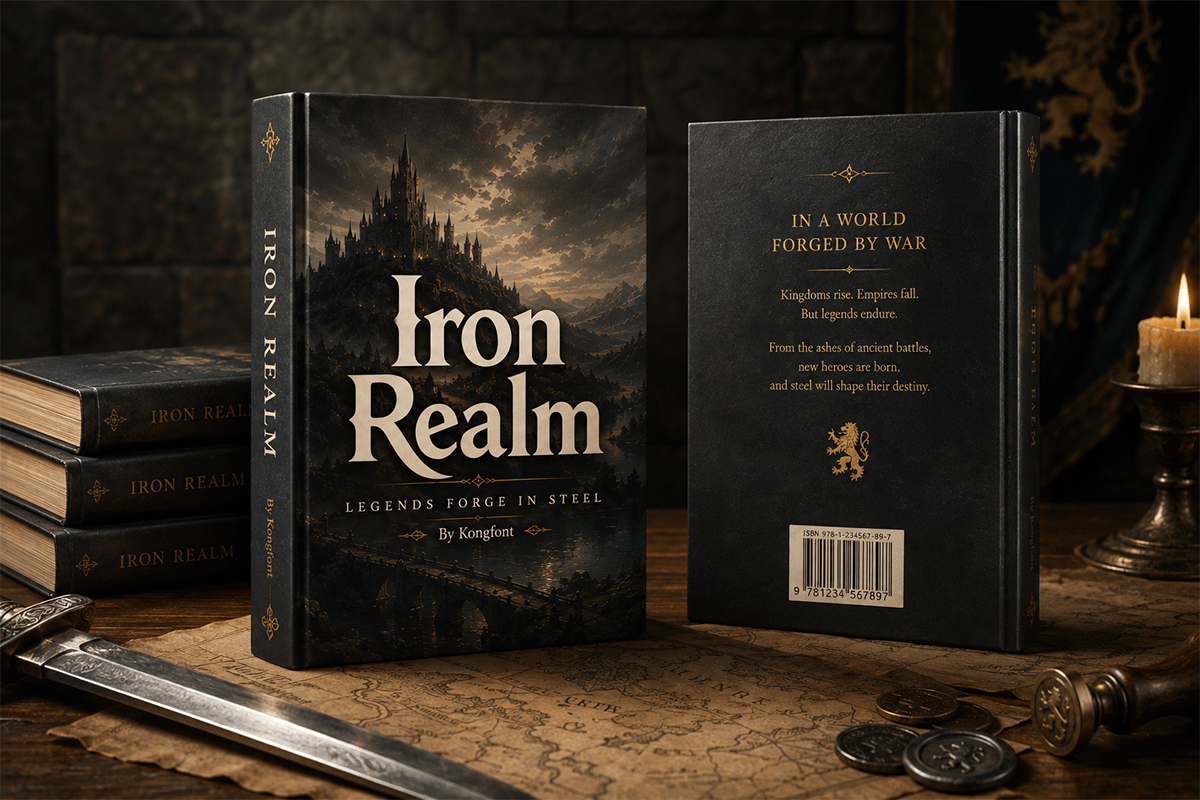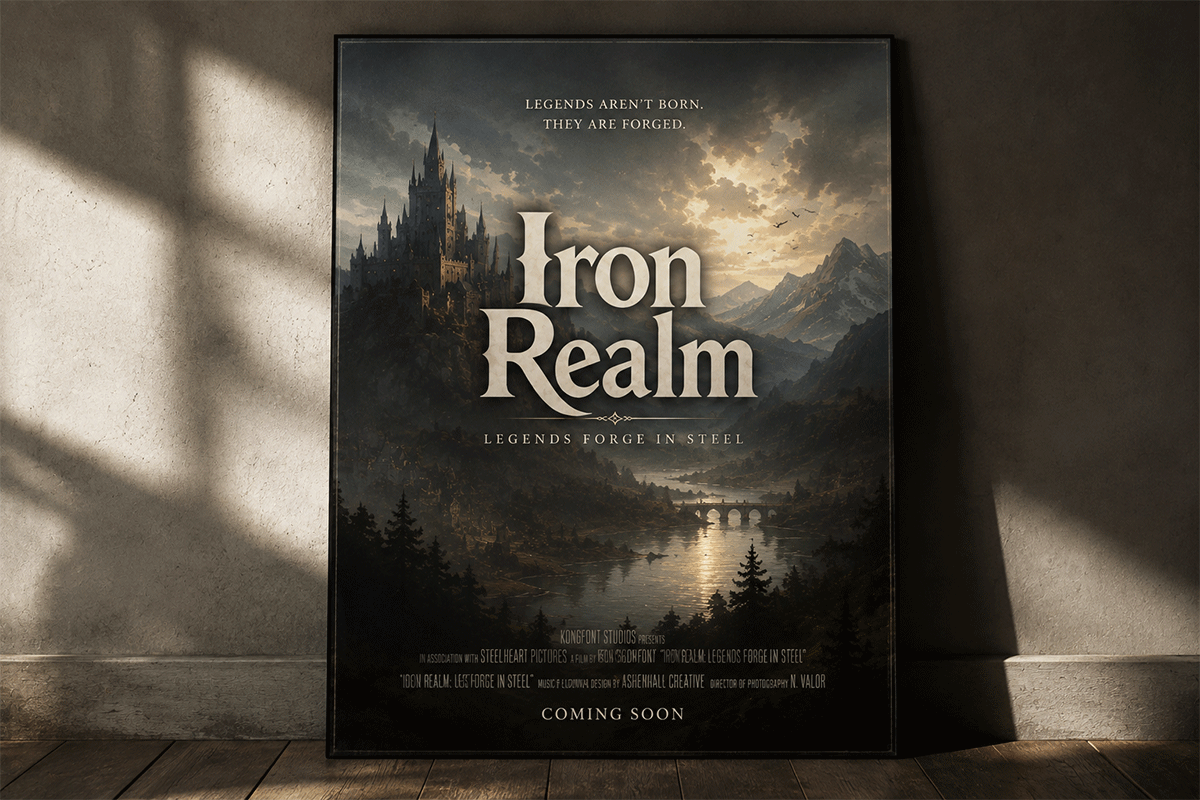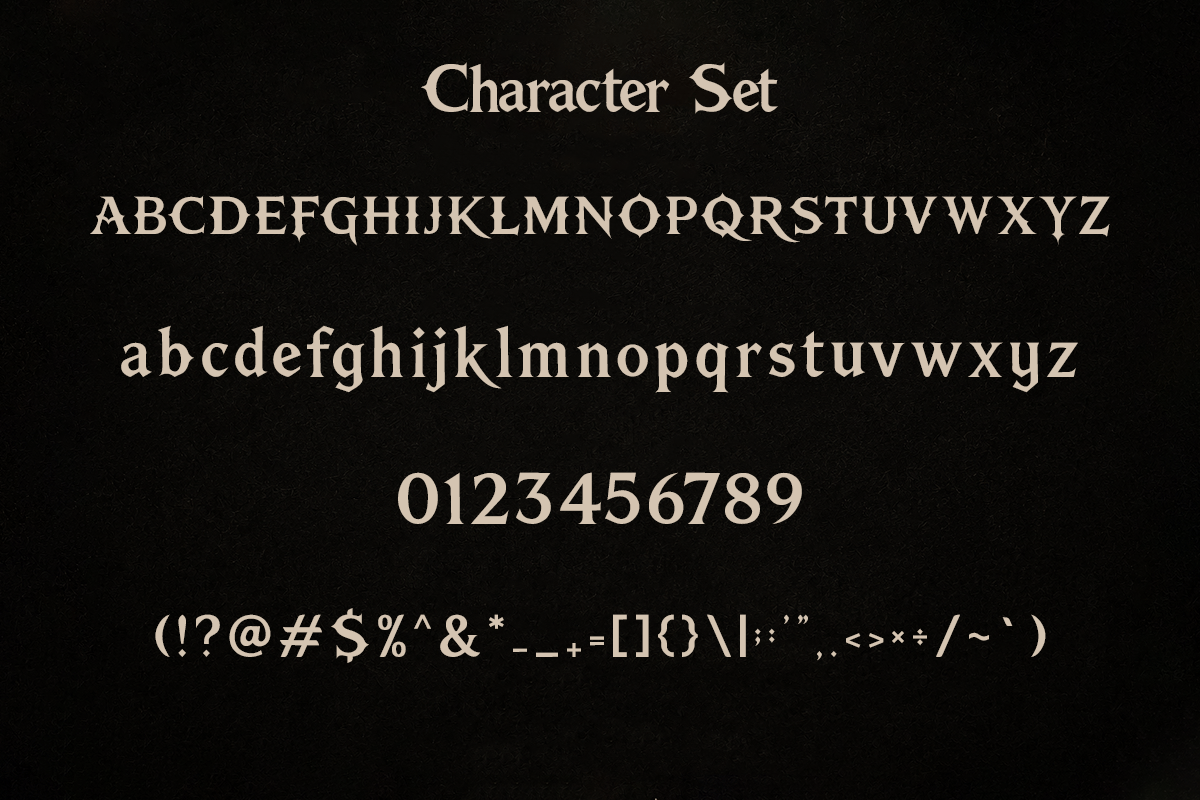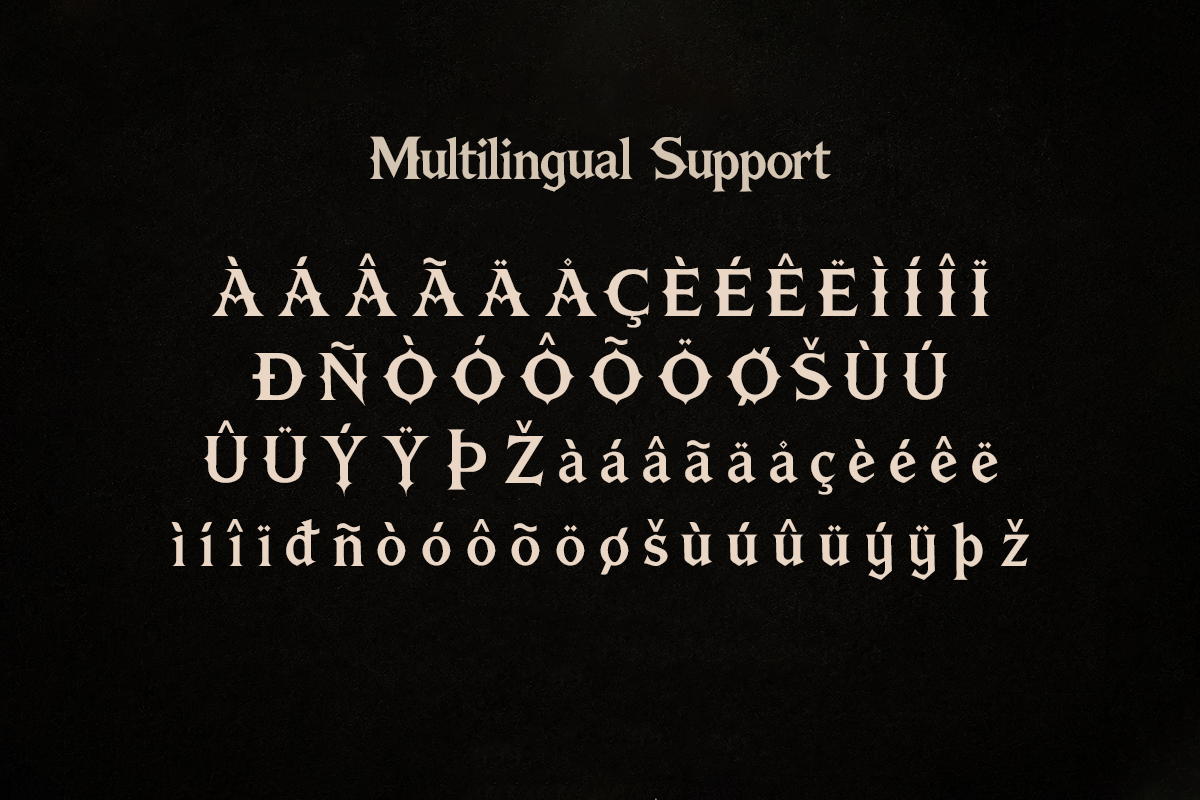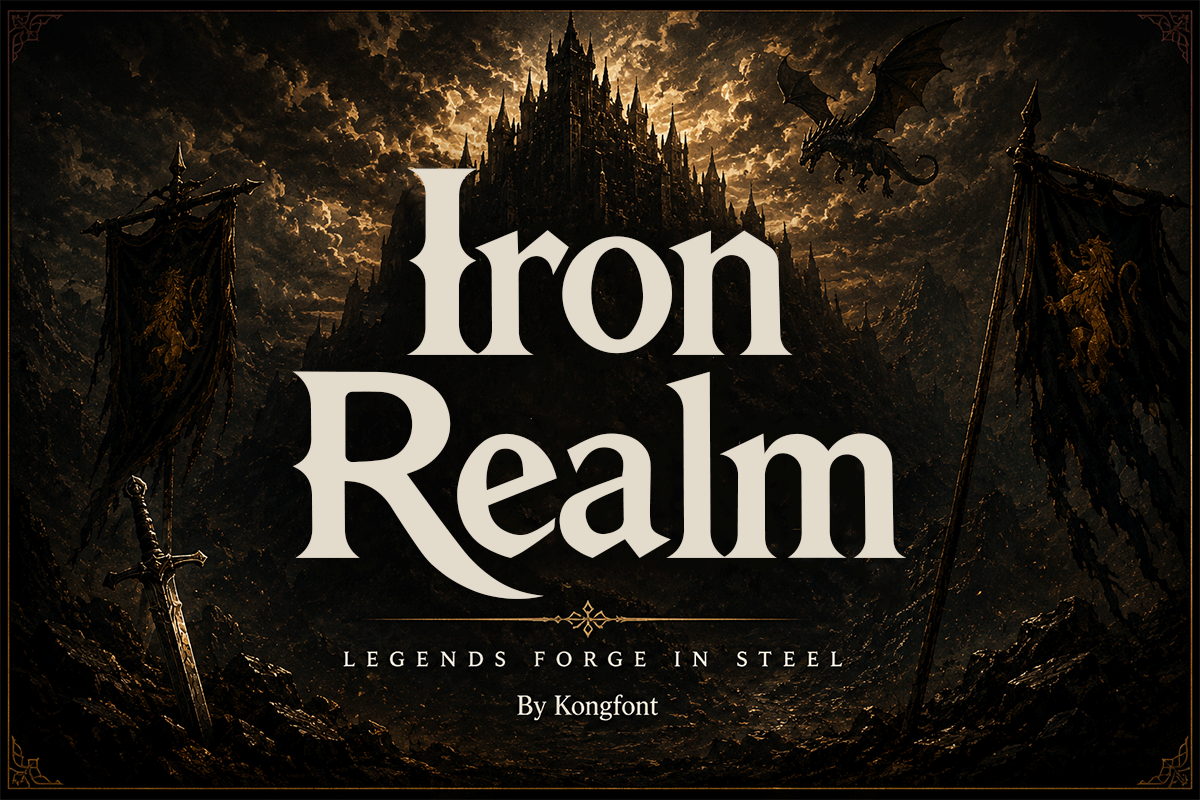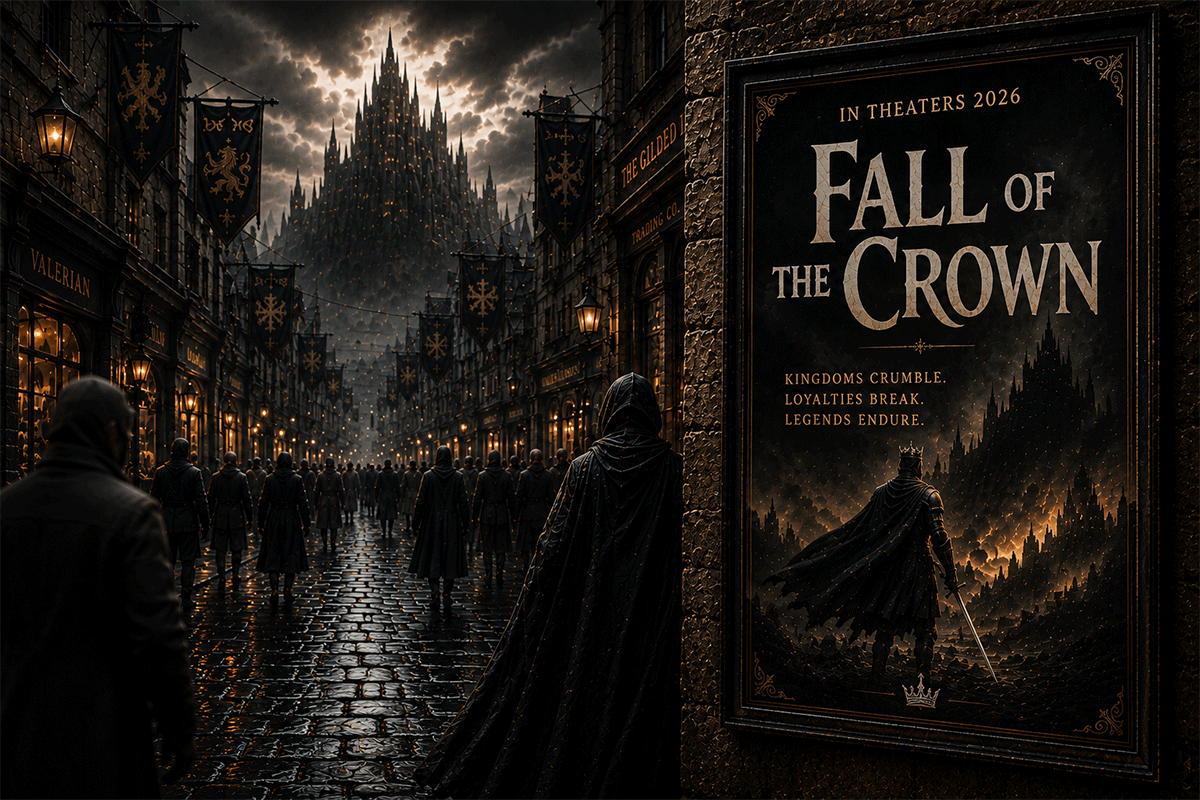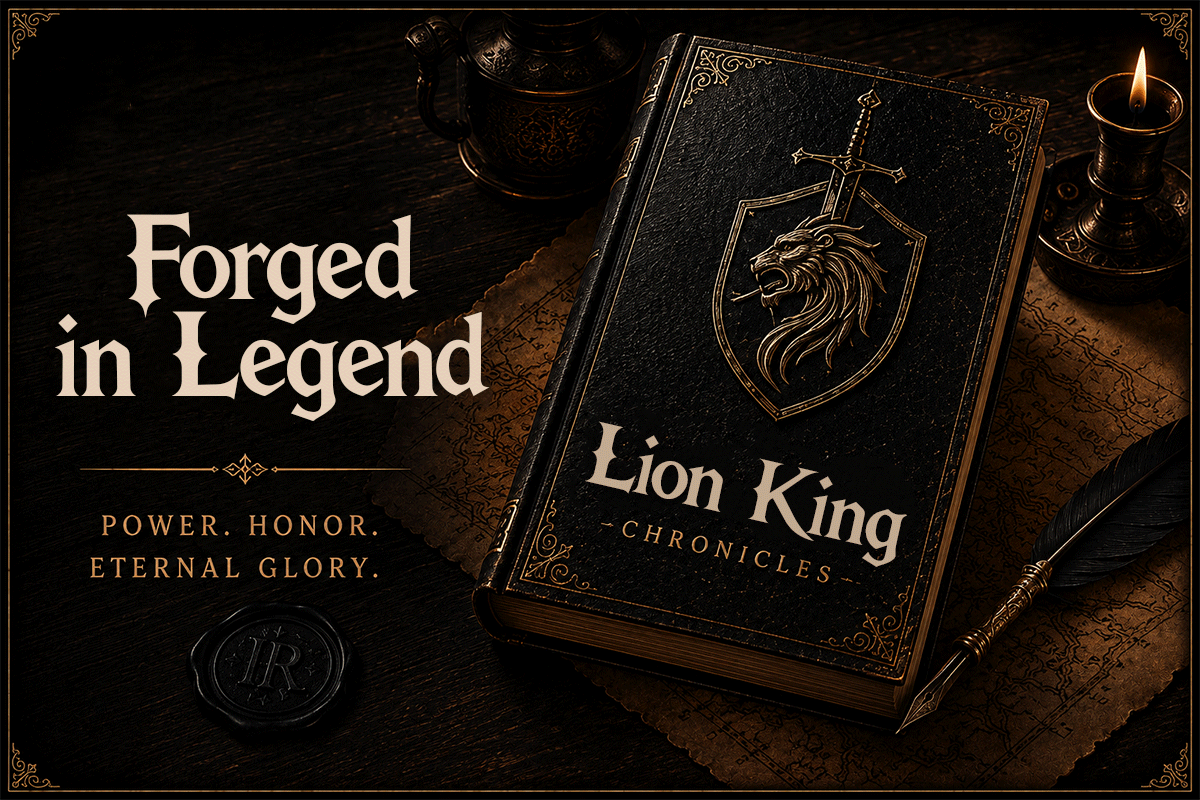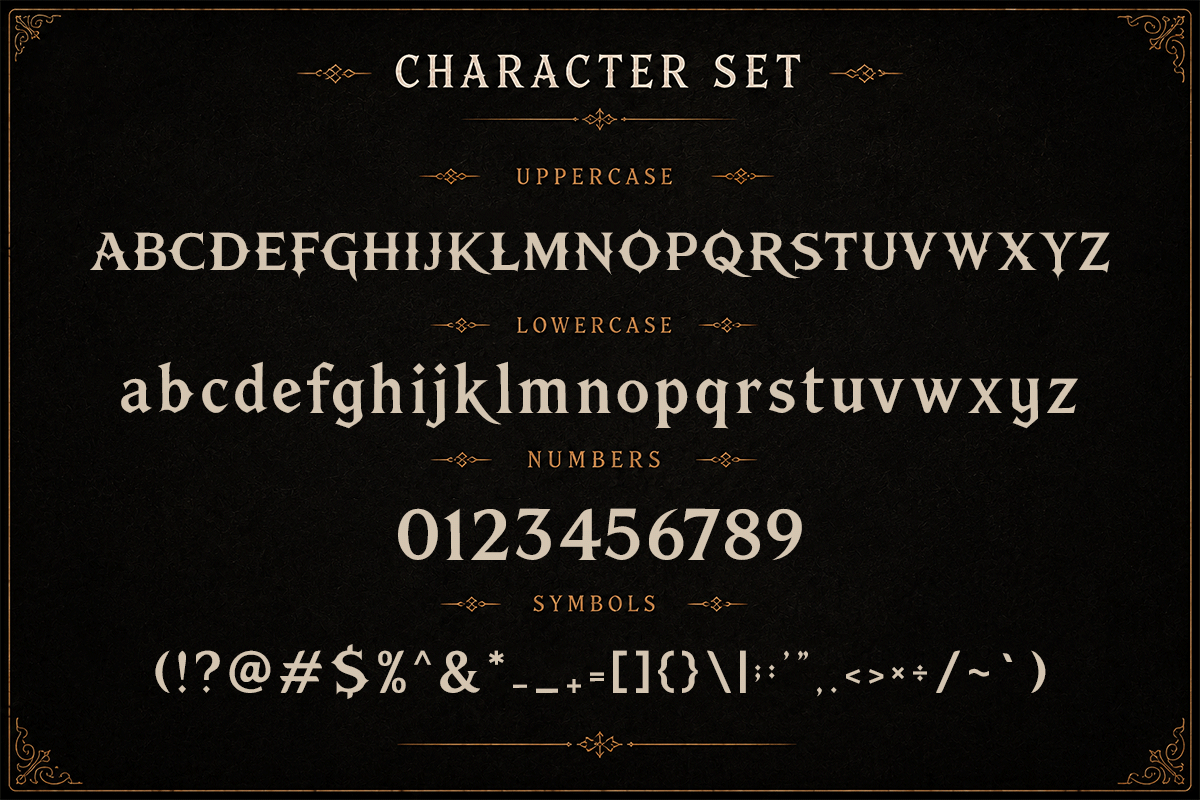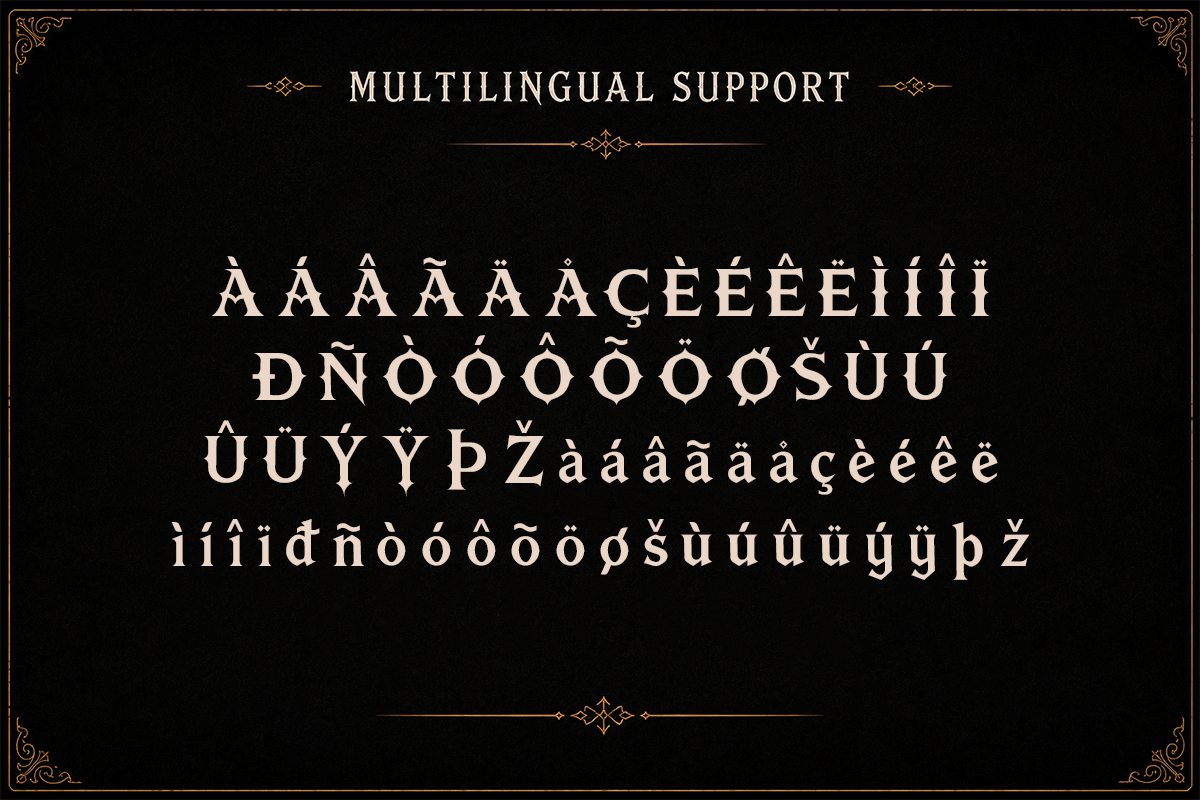
Iron Realm A Modern Serif Fantasy Font is a powerful fantasy display font inspired by the grandeur of medieval kingdoms, legendary warriors, and epic adventures. With its sharp serif details, commanding letterforms, and timeless elegance, this typeface brings a cinematic atmosphere to every design. Whether you're creating fantasy book covers, movie posters, game titles, or premium branding, Iron Realm A Modern Serif Fantasy Font delivers a bold and unforgettable presence that captures the spirit of ancient legends.
Designed to combine classic medieval aesthetics with modern readability, Iron Realm A Modern Serif Fantasy Font offers striking uppercase and lowercase characters, complete numerals, punctuation, and multilingual support. Every letter is crafted to evoke strength, nobility, and mystery, making it the perfect choice for projects that demand a dramatic and heroic visual identity.